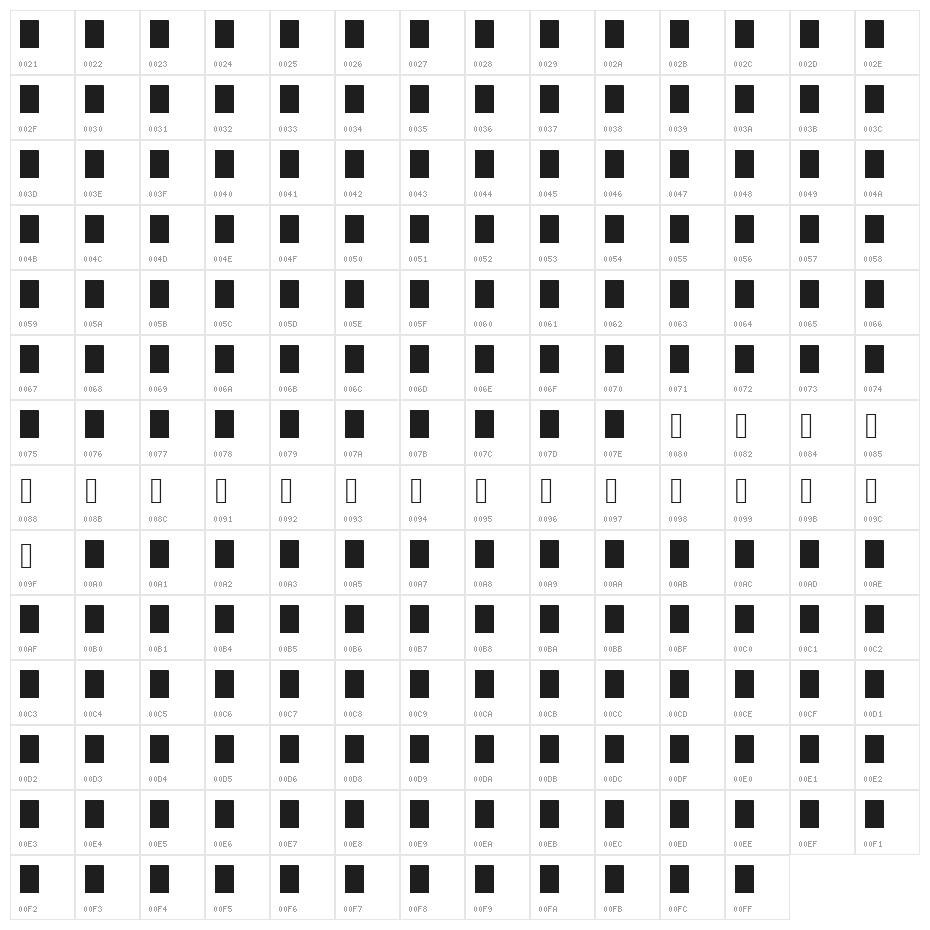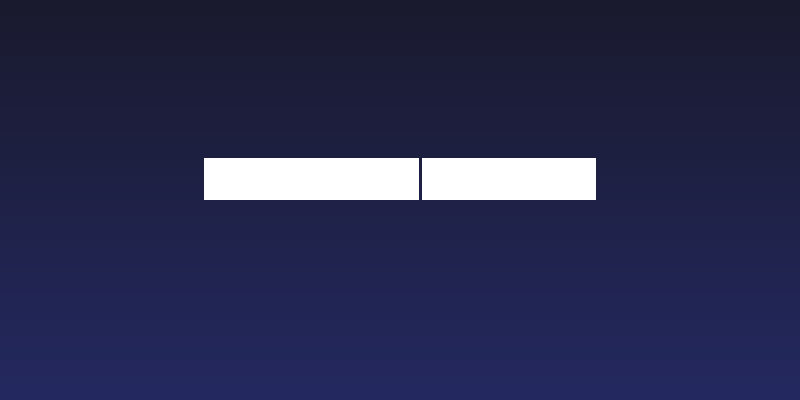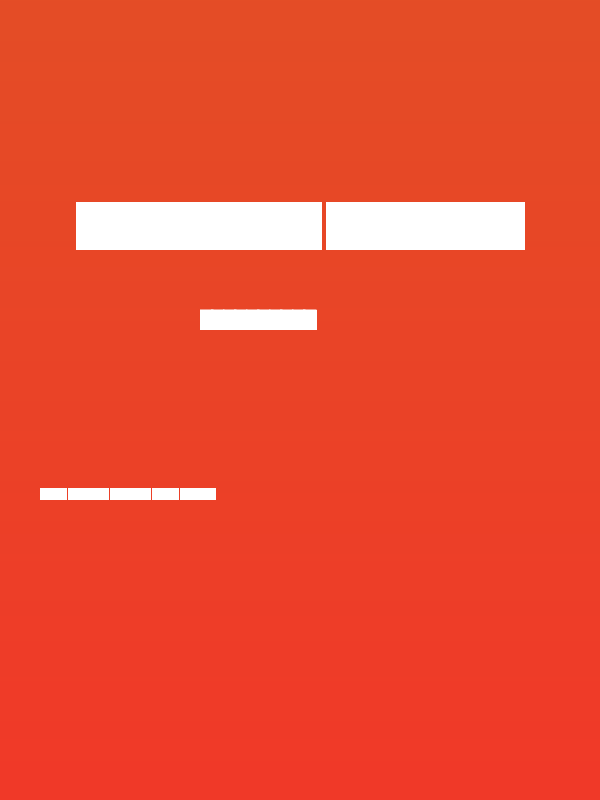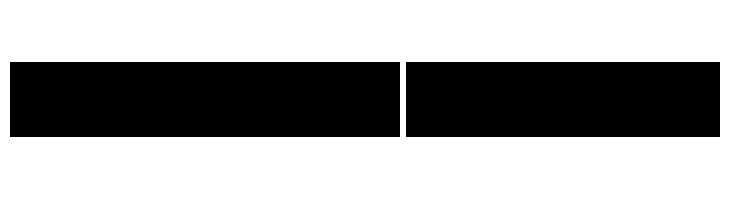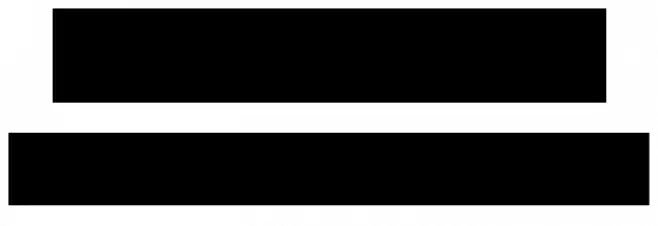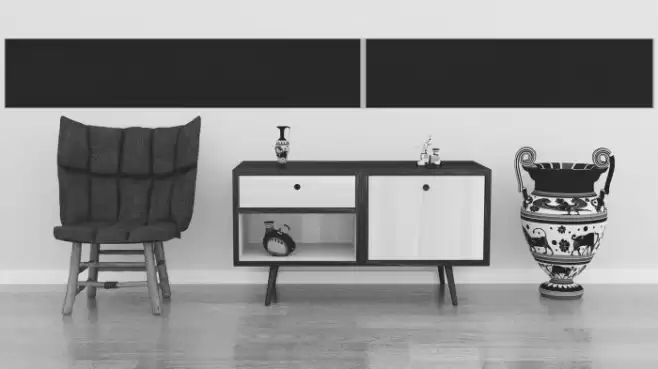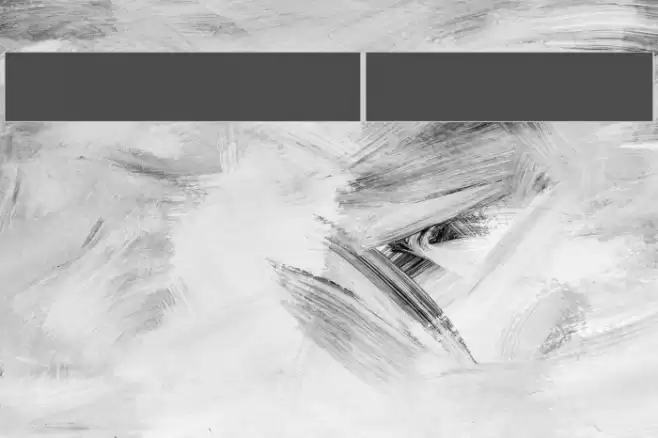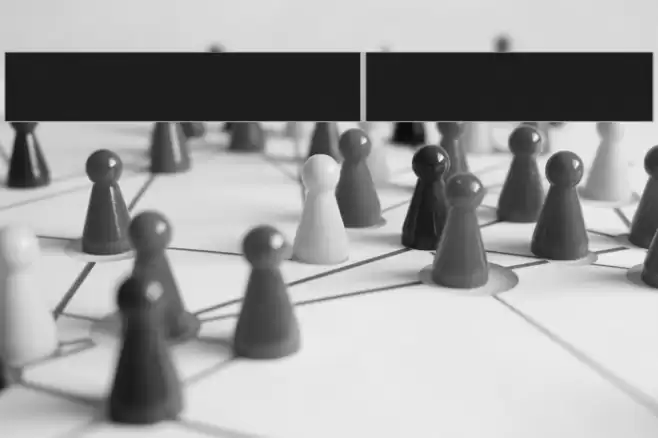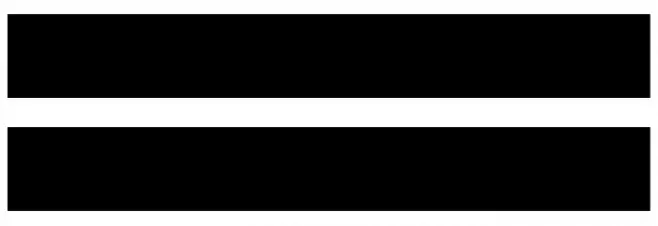
Redacted Regular Font
Redacted Regular Description
This is not a readable font; it consists of solid black bars in place of characters, simulating redacted or censored text.
| Overall Style | Decorative, utilitarian, conceptual |
| Use Case | Redacted text, mockups, privacy illustrations |
| Proposed Projects | Censorship mockups, privacy-focused design, placeholder text, legal or classified document simulations. |